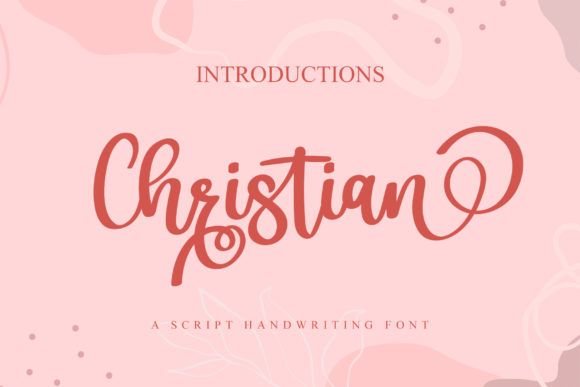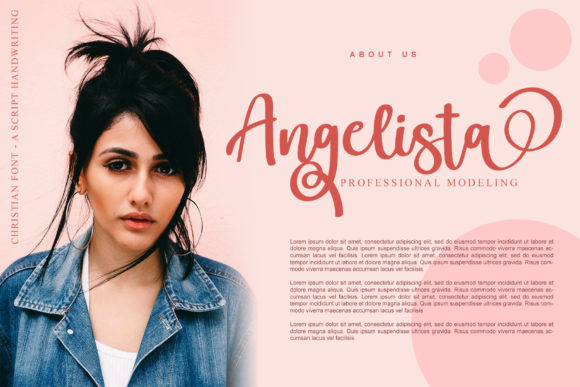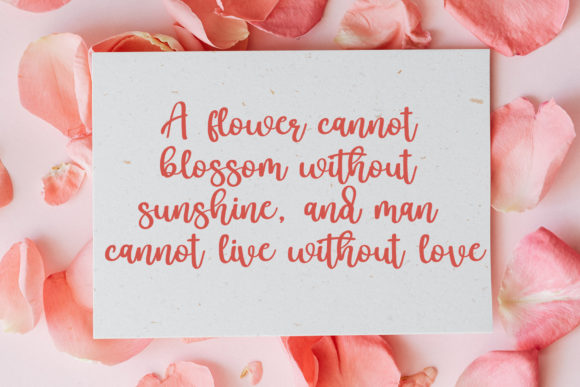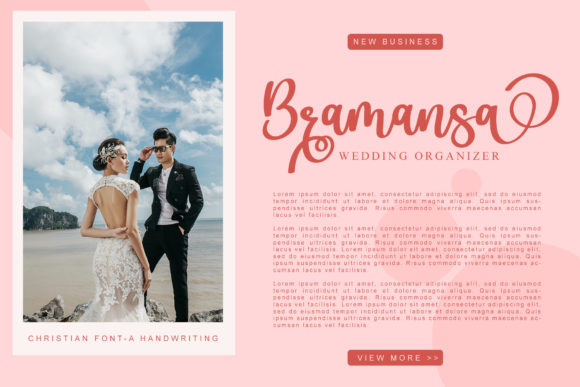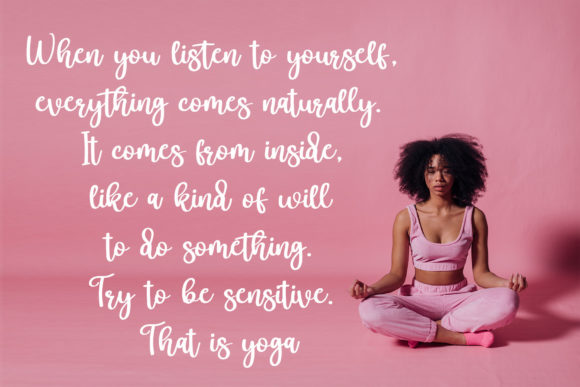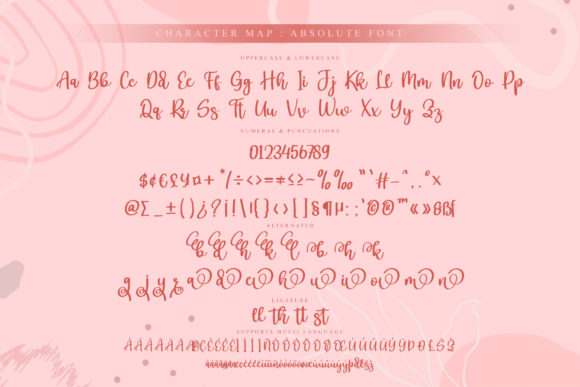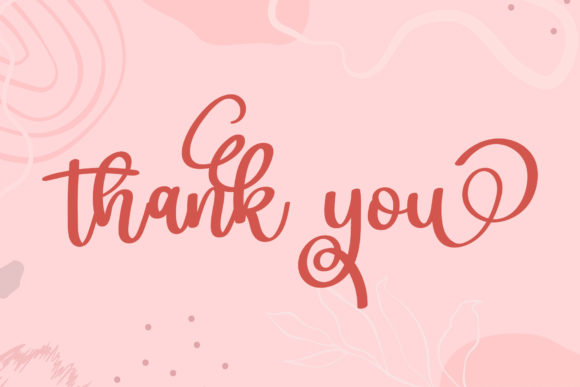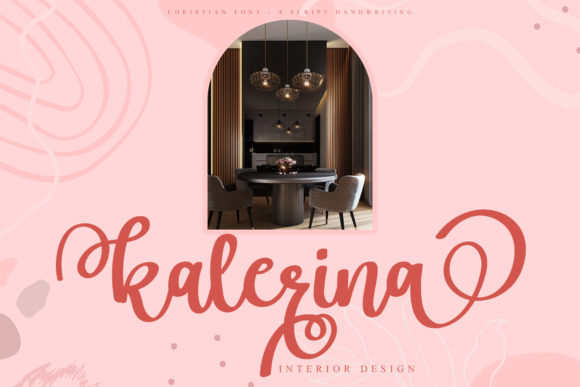
Christian Font
About Christian Font
Christian is a lovely script font featuring charming, playful characters that seem to dance along the baseline. It is PUA encoded which means you can access all glyphs and swashes with ease!